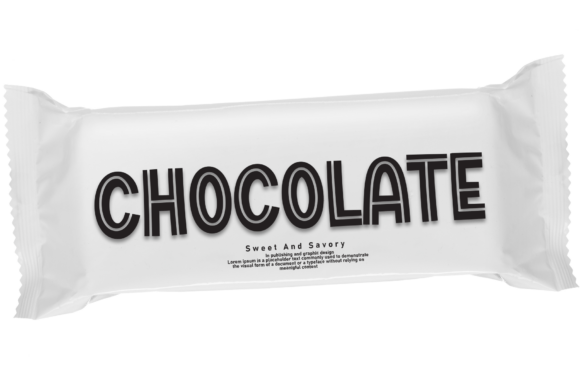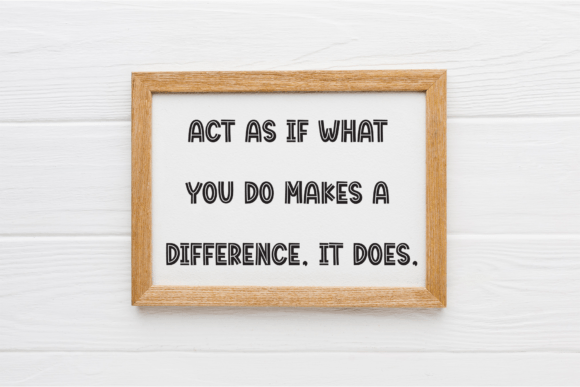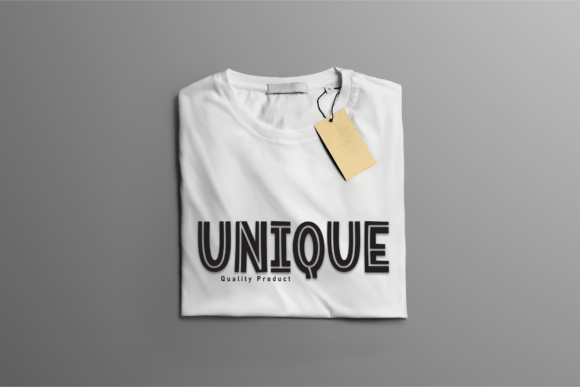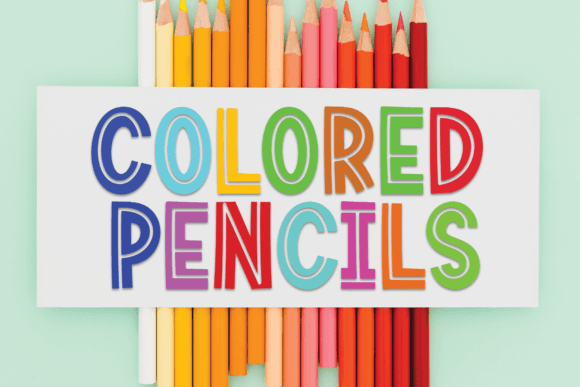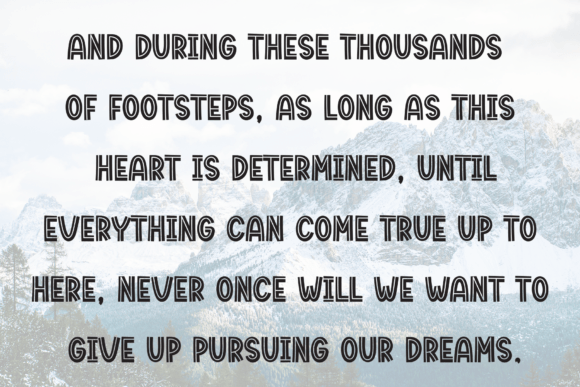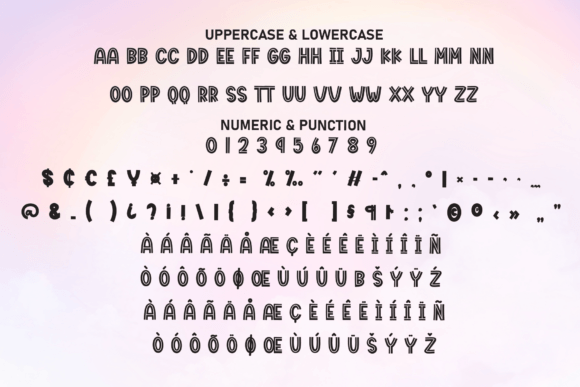
Introduction to Cute Angela Font Font
Fonts play a crucial role in design, and the Cute Angela Font font is a typeface that brings both character and versatility to any project. Whether you’re working on a branding project, a website, or a print design, the Cute Angela Font font offers a unique style that can elevate your work.
Bursting with character, it adds a dash of fun and an overload of charm to any design project.
Imagine personalizing wedding invitations with a sprinkling of heart-warming sweetness, or lending a lighthearted mood to card creations This font is a perfect choice to infuse any design with a jovial, engaging touch that instantly captures the heart.
Key Features of Cute Angela Font Font
Why Choose Cute Angela Font Font?
The Cute Angela Font font is more than just a typeface – it’s a design tool that helps you communicate your message with style and clarity. Its unique character set and versatile design make it suitable for a wide range of applications, from elegant invitations to bold headlines.
With its carefully crafted letterforms and balanced proportions, the Cute Angela Font font ensures readability and visual appeal across all mediums.
What makes Cute Angela Font font special?
The Cute Angela Font font stands out with its unique design, exceptional readability, and versatility across various design applications.